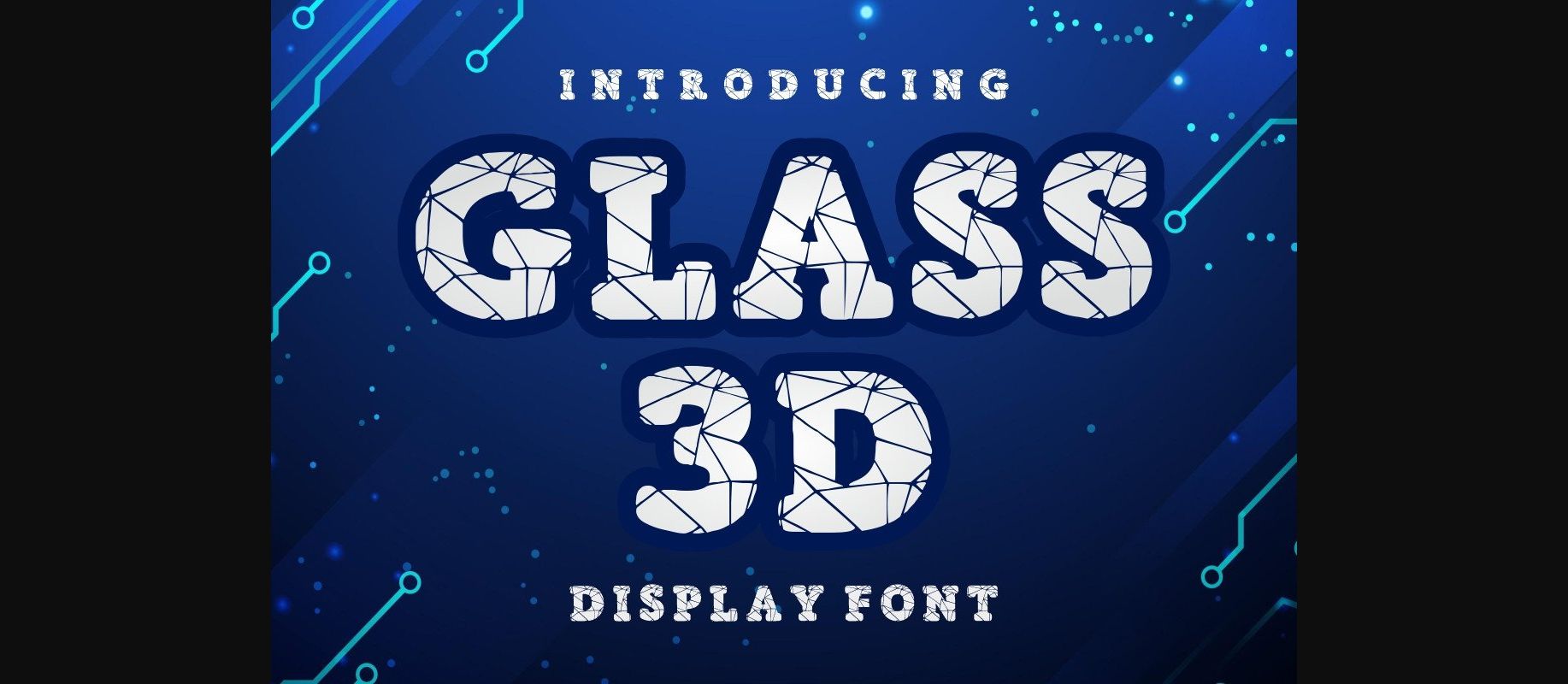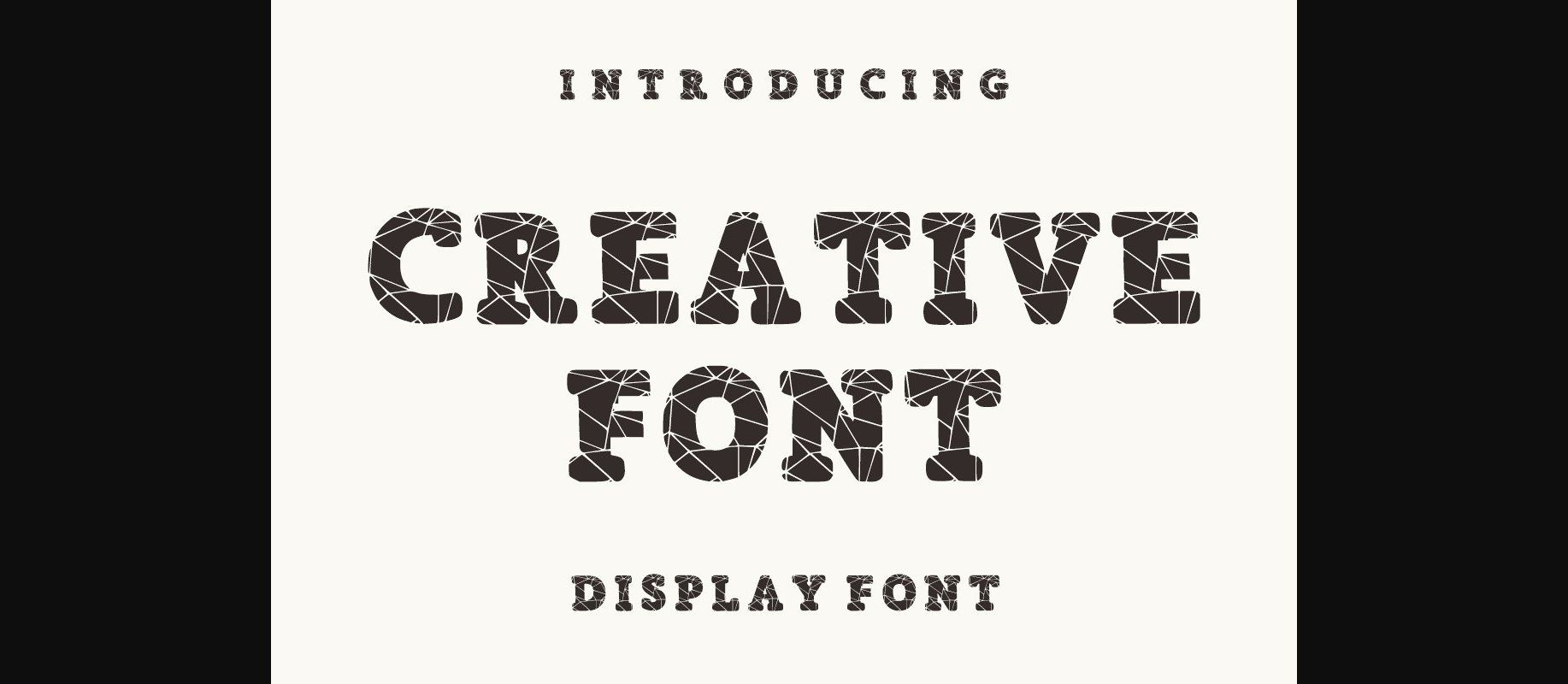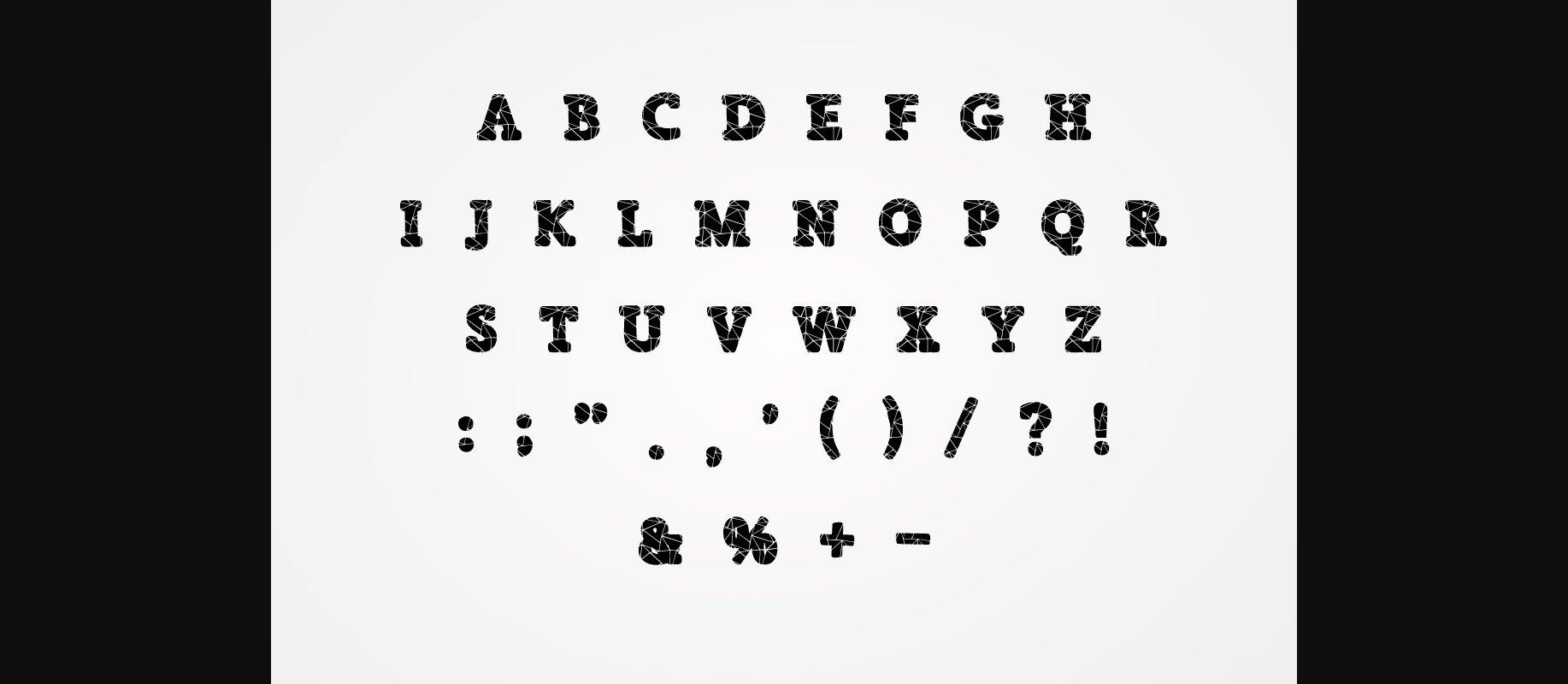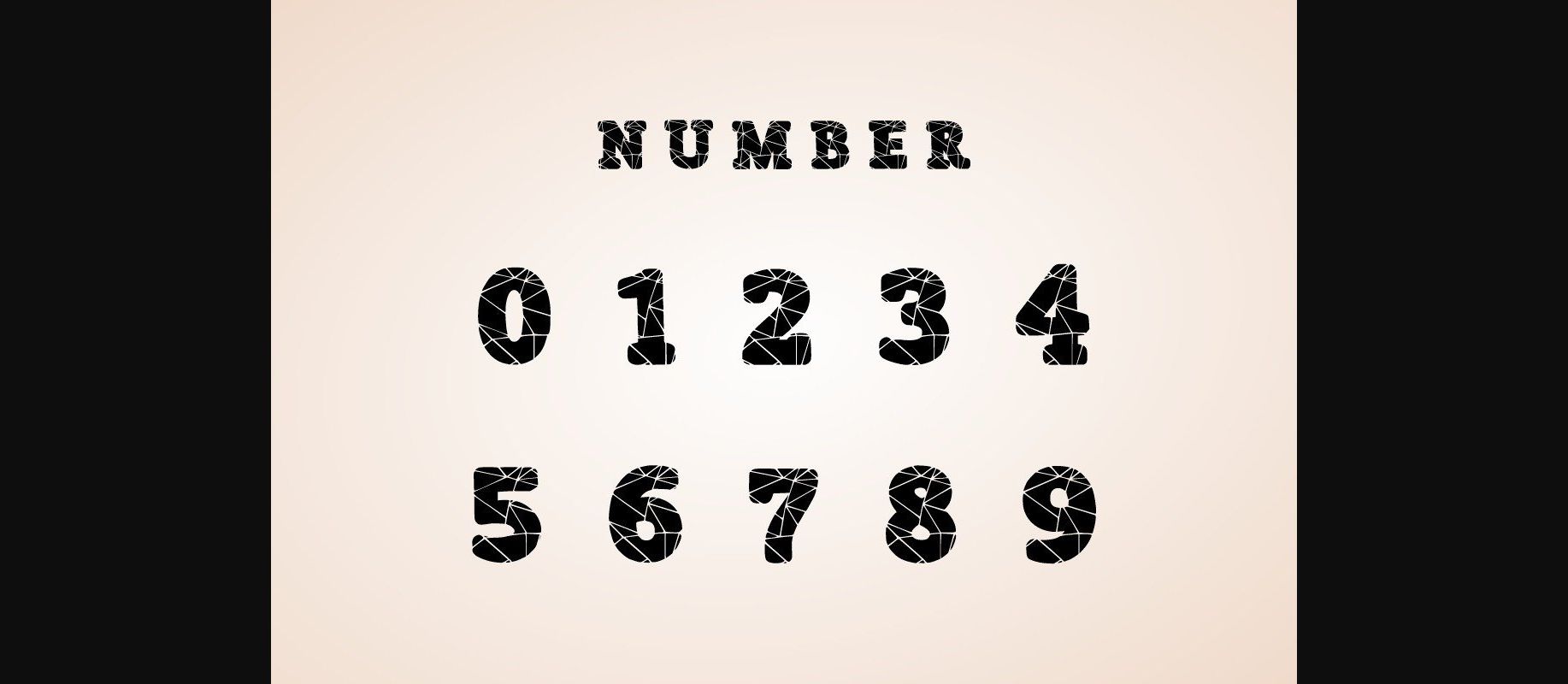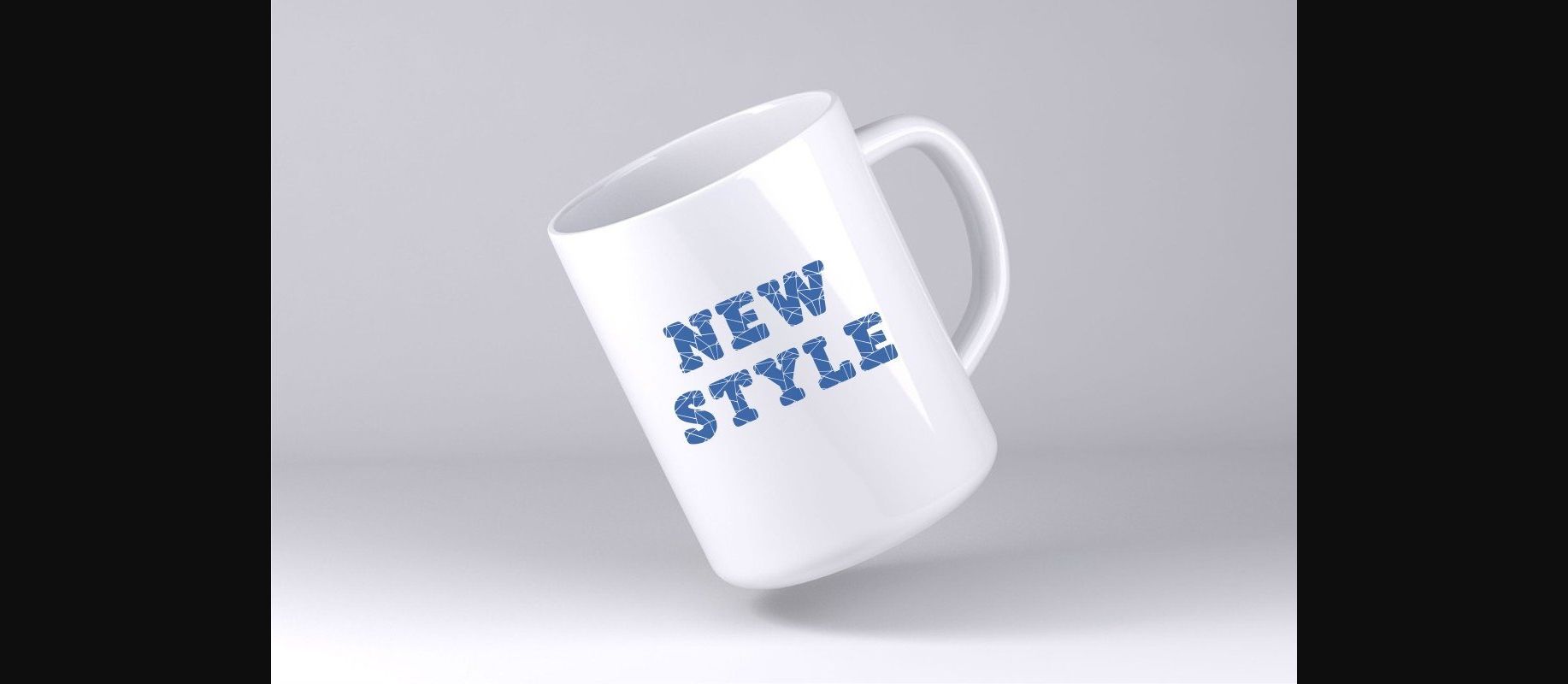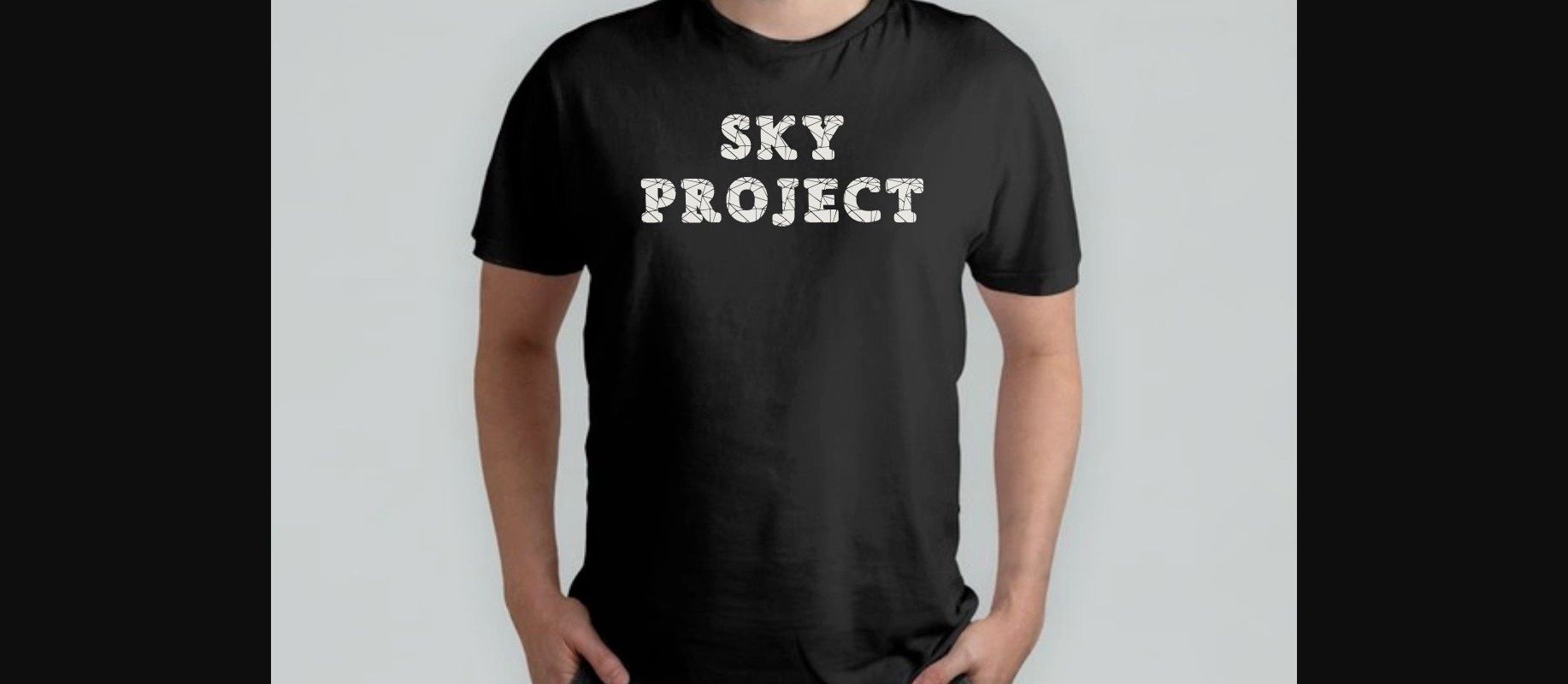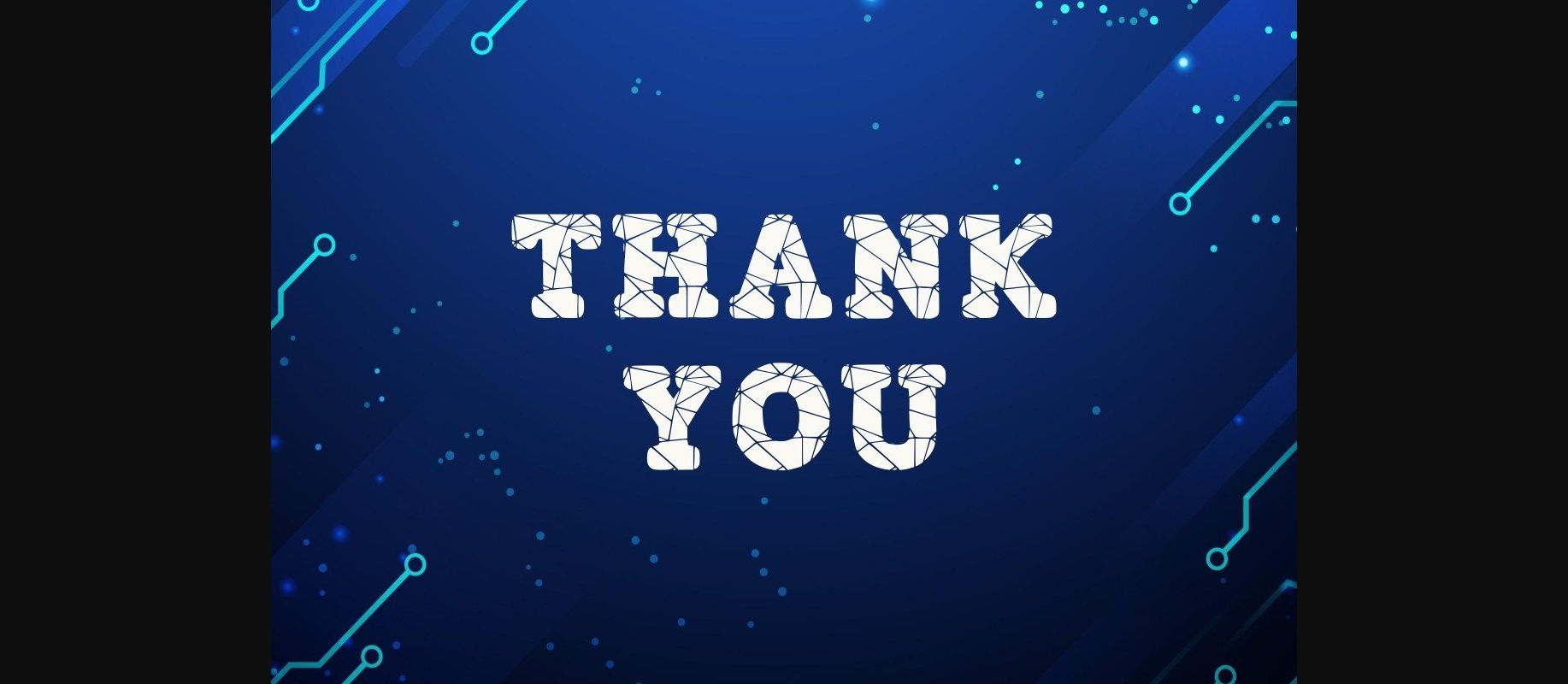
Glass 3D is a 3D and Glass 3D line-shaped decorative font. It features a dynamic effect and a unique charm. It is perfect for headlines, sporting events, text effects, posters, logos, or monogrammed designs.